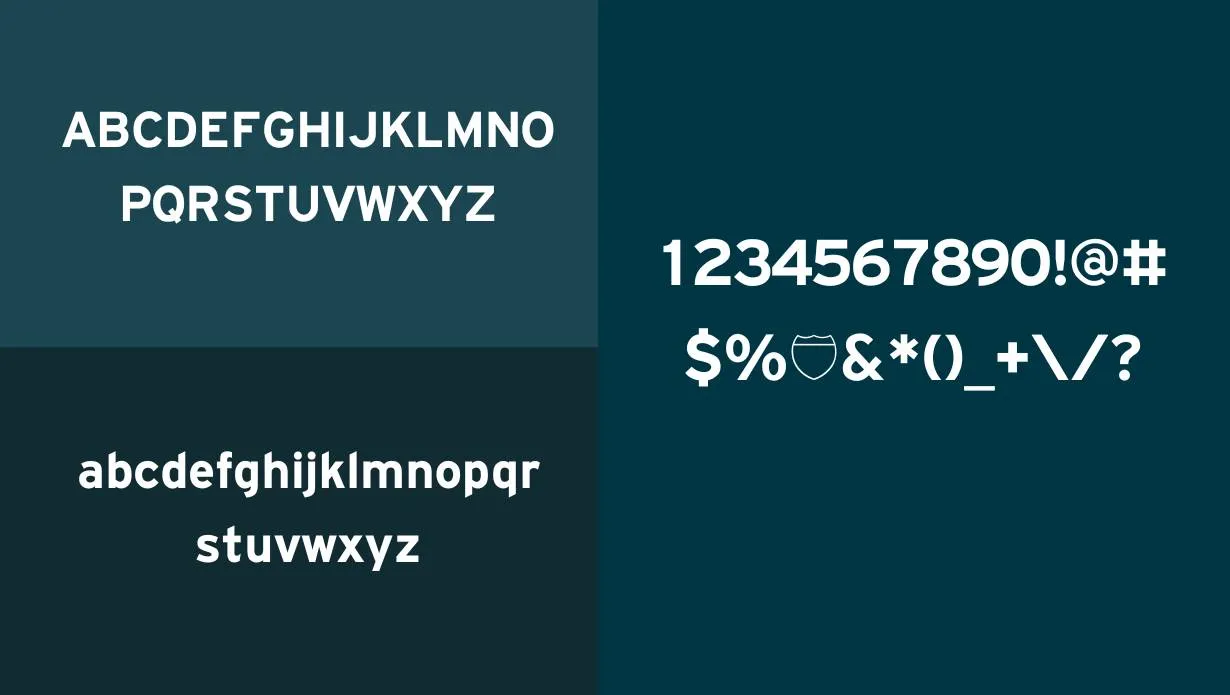
Real Simple Font embraces a clean and straightforward design, making it a versatile choice for a variety of projects. Its simplicity adds a touch of elegance without being overly intricate.
| Name | Real Simple Font |
| Designer | Tobias Frere-Jones |